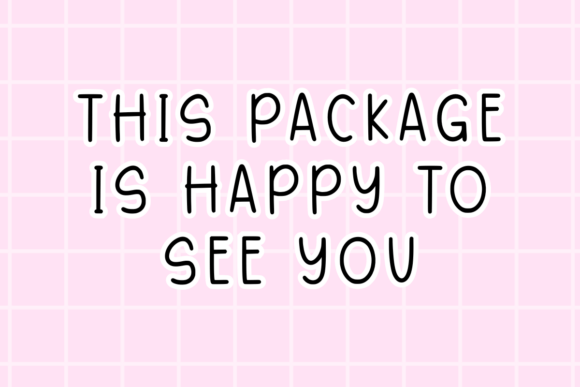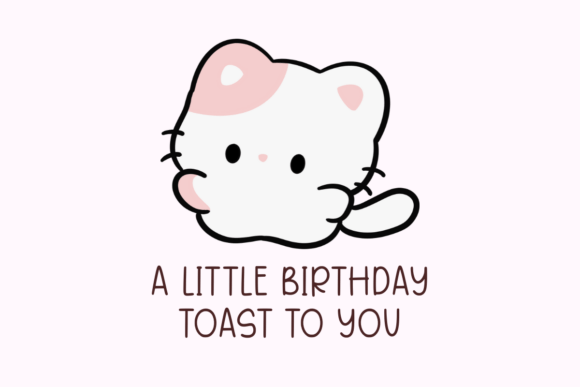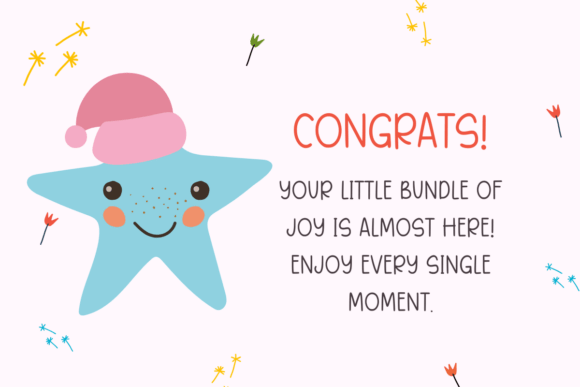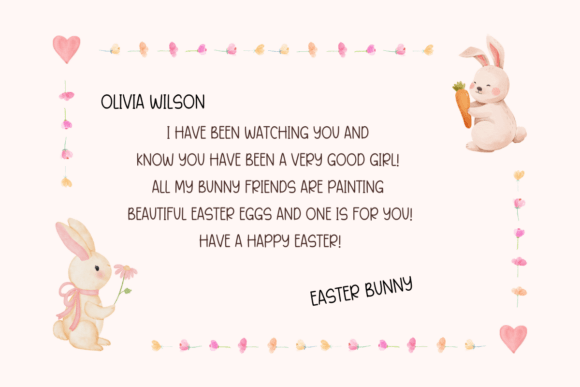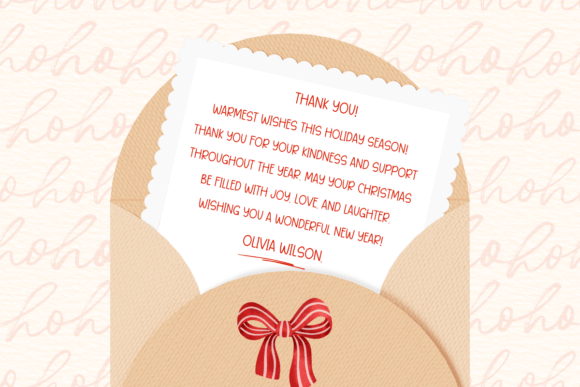
Introduction to Rhinestone Yourself Font
Do you remember the feeling of excitement when you finally find the perfect font for your creative project? The thrill of watching your design come to life with a high-quality typeface that perfectly captures the essence of your vision? For designers, finding the right font can be a game-changer, and that’s exactly what we’re excited to introduce you to – the Rhinestone Yourself Font.
This charming sans serif font is more than just a design resource – it’s a sparkly addition to any project that demands a playful and modern touch. With its soft curves and friendly style, Rhinestone Yourself Font is perfect for fun projects, girly themes, and all things sparkly. Its transparent background makes it a versatile choice for a variety of design applications, from stickers and t-shirts to social media posts and greeting cards.
Key Features of Rhinestone Yourself Font
- Unique and sparkly design, perfect for creative projects and adding a touch of glamour.
- High-quality font with a transparent background, ideal for use as a design resource in various applications.
- Perfect for use in various creative projects, including digital art, graphic design, and social media graphics.
Honest Review: Rhinestone Yourself Font
I recently stumbled upon the Rhinestone Yourself Font and was excited to see how it would shine in my next creative project. The first thing that caught my attention was the high-quality design, which is perfect for any project that needs a touch of glamour.
The font is available for free download, which is a great bonus for designers who are on a budget. However, the transparent background is a bit of a challenge to work with, especially when trying to combine it with other design elements.
What works well with the Rhinestone Yourself Font is its versatility. It can be used for a wide range of creative projects, from invitations to social media graphics. The font is also highly customizable, allowing designers to experiment with different styles and effects.
Here are some pros and cons I found:
- ✨ High-quality design that adds a touch of glamour to any project
- ✨ Versatile and customizable
- ⚠️ Transparent background can be challenging to work with
- ⚠️ Limited in terms of font sizes and styles
Overall, the Rhinestone Yourself Font is a great design resource for anyone looking to add some sparkle to their creative project. While it has its limitations, it’s definitely worth downloading for free and experimenting with its many possibilities.
Getting the Most Out of Rhinestone Yourself Font
To get the most out of the Rhinestone Yourself Font, experiment with different font sizes, colors, and styles. You can also combine the font with other design elements to create a unique look. Remember to use the font on a transparent background to achieve a high-quality design.
The Rhinestone Yourself Font is perfect for creative projects that require a touch of glamour and sophistication. Some common use cases include:
- Wedding invitations and decorations
- Party and event invitations
- Personalized gifts and accessories